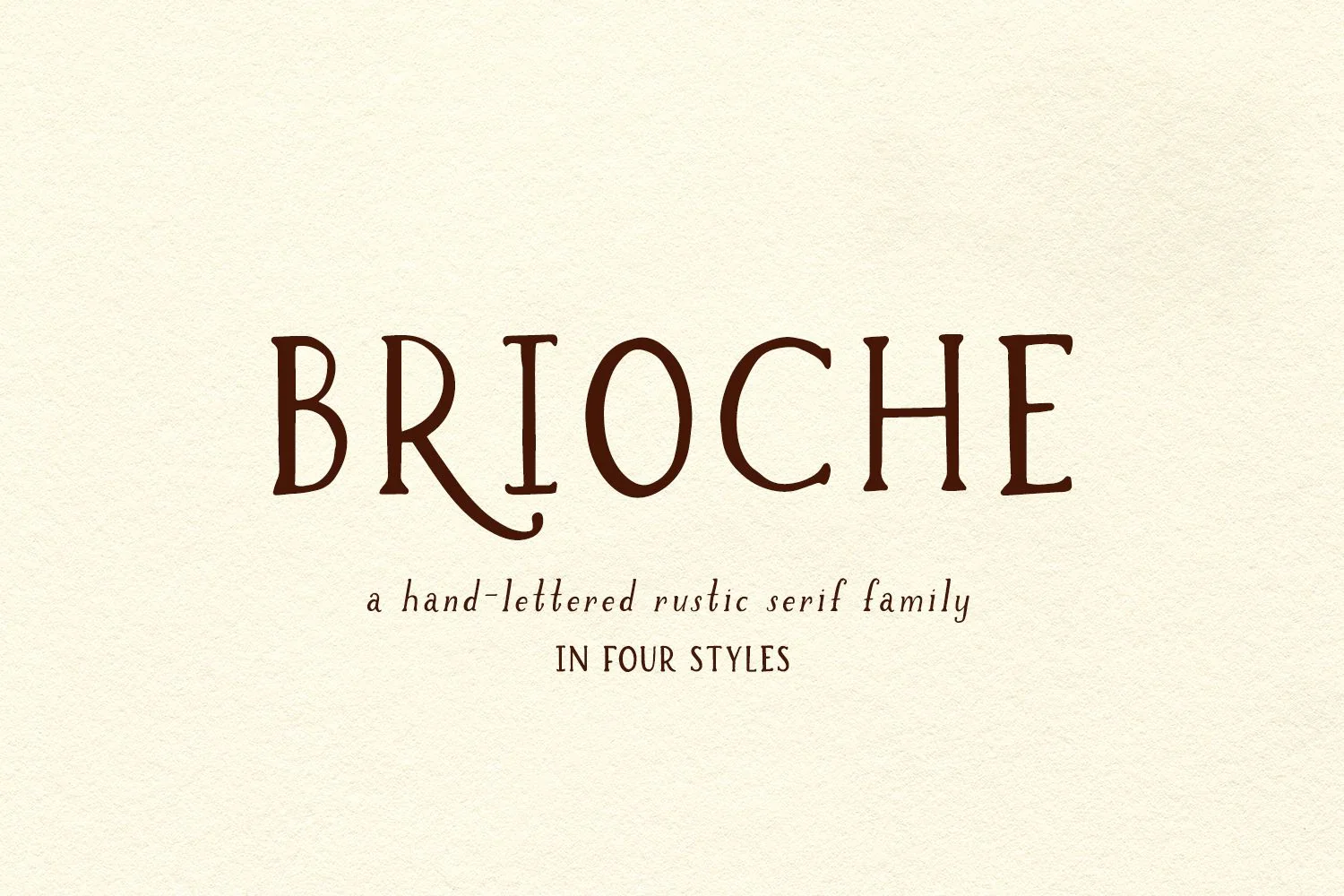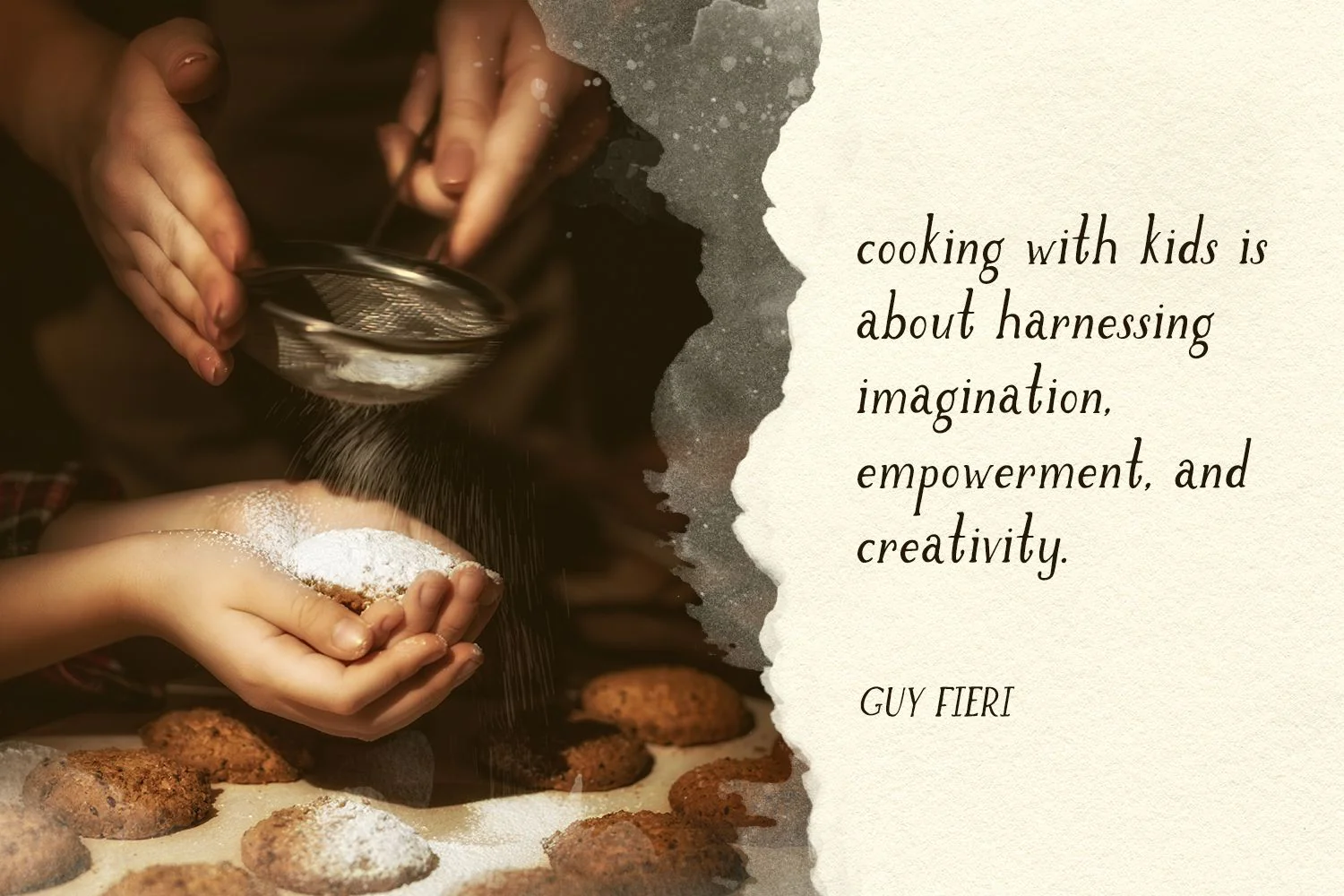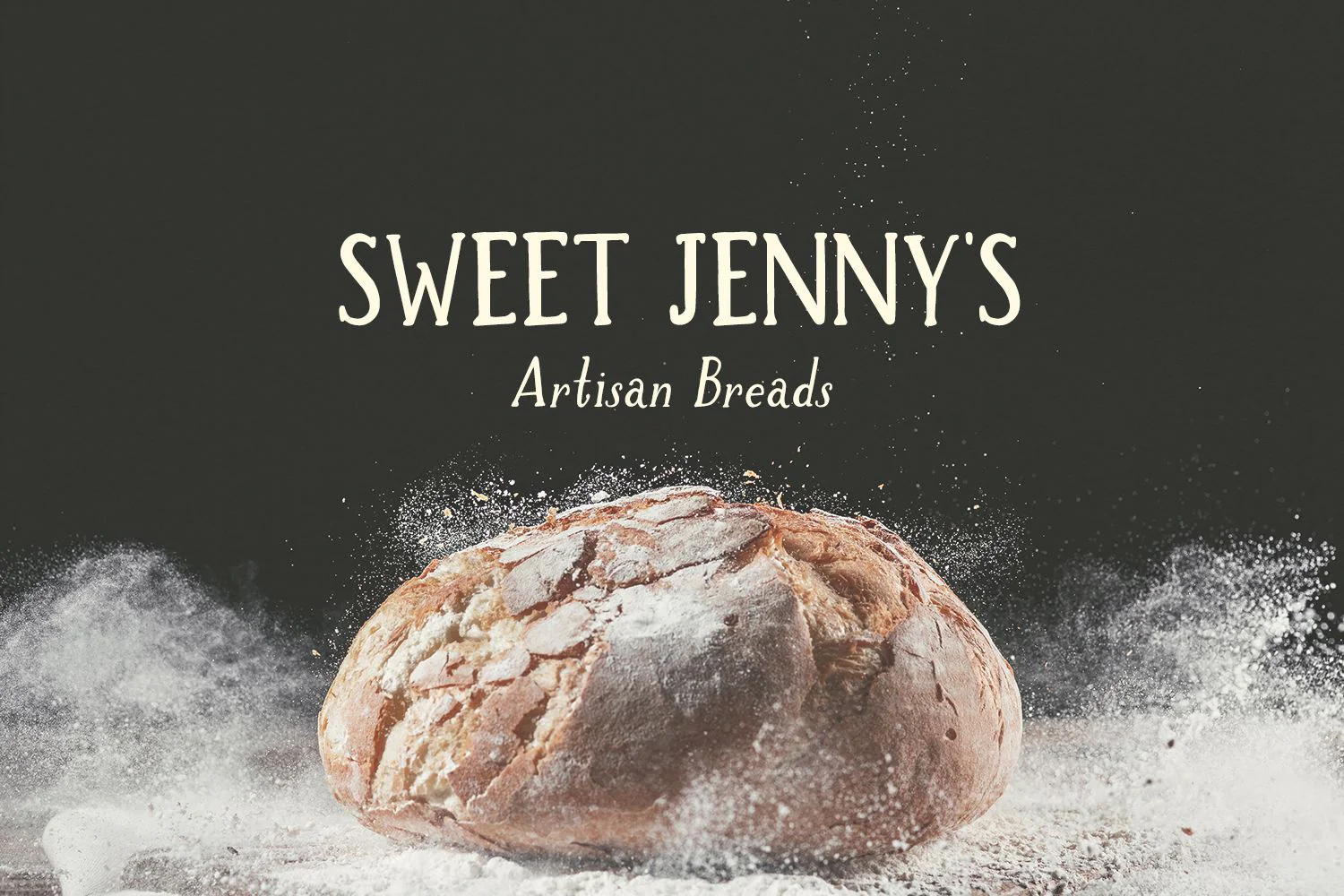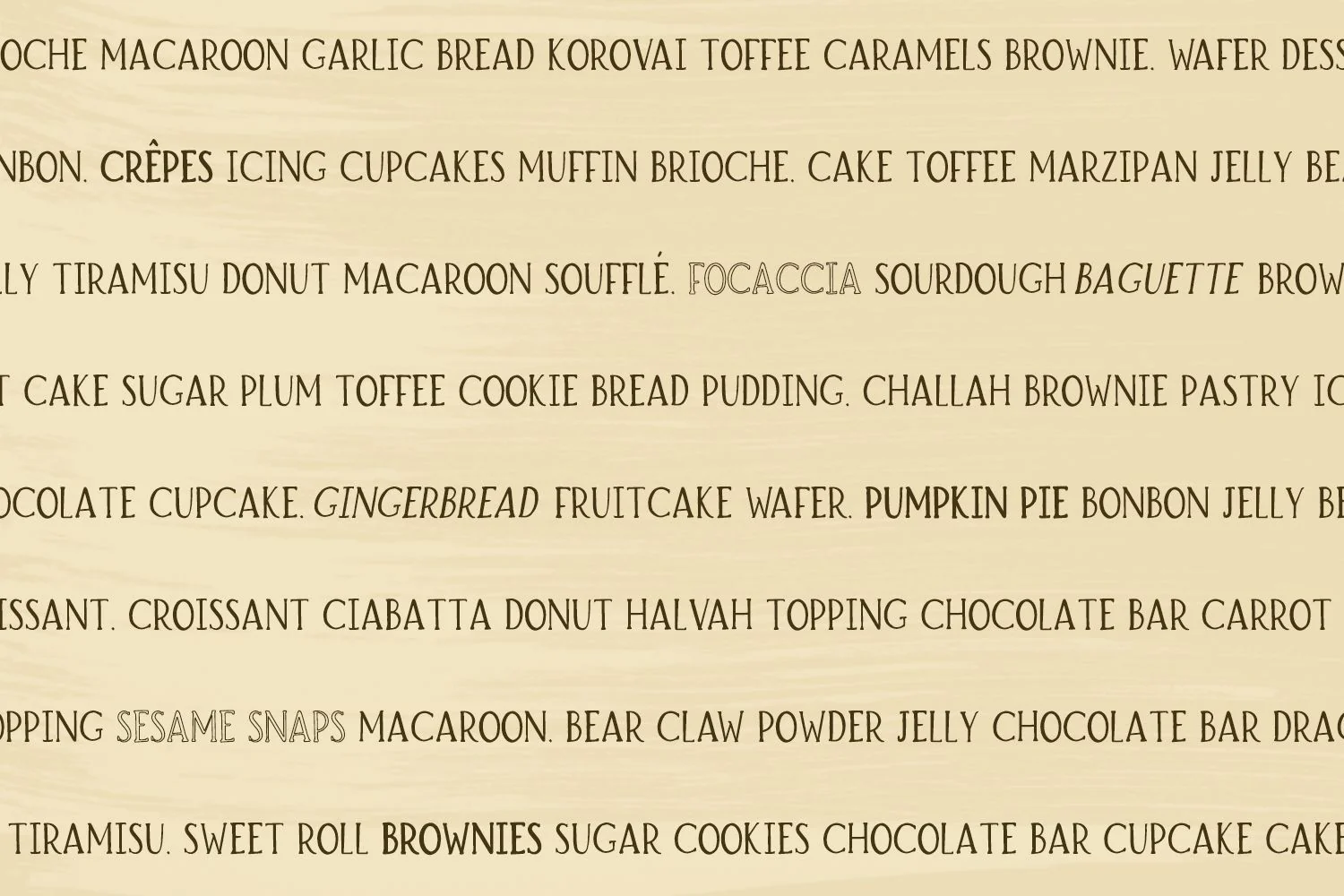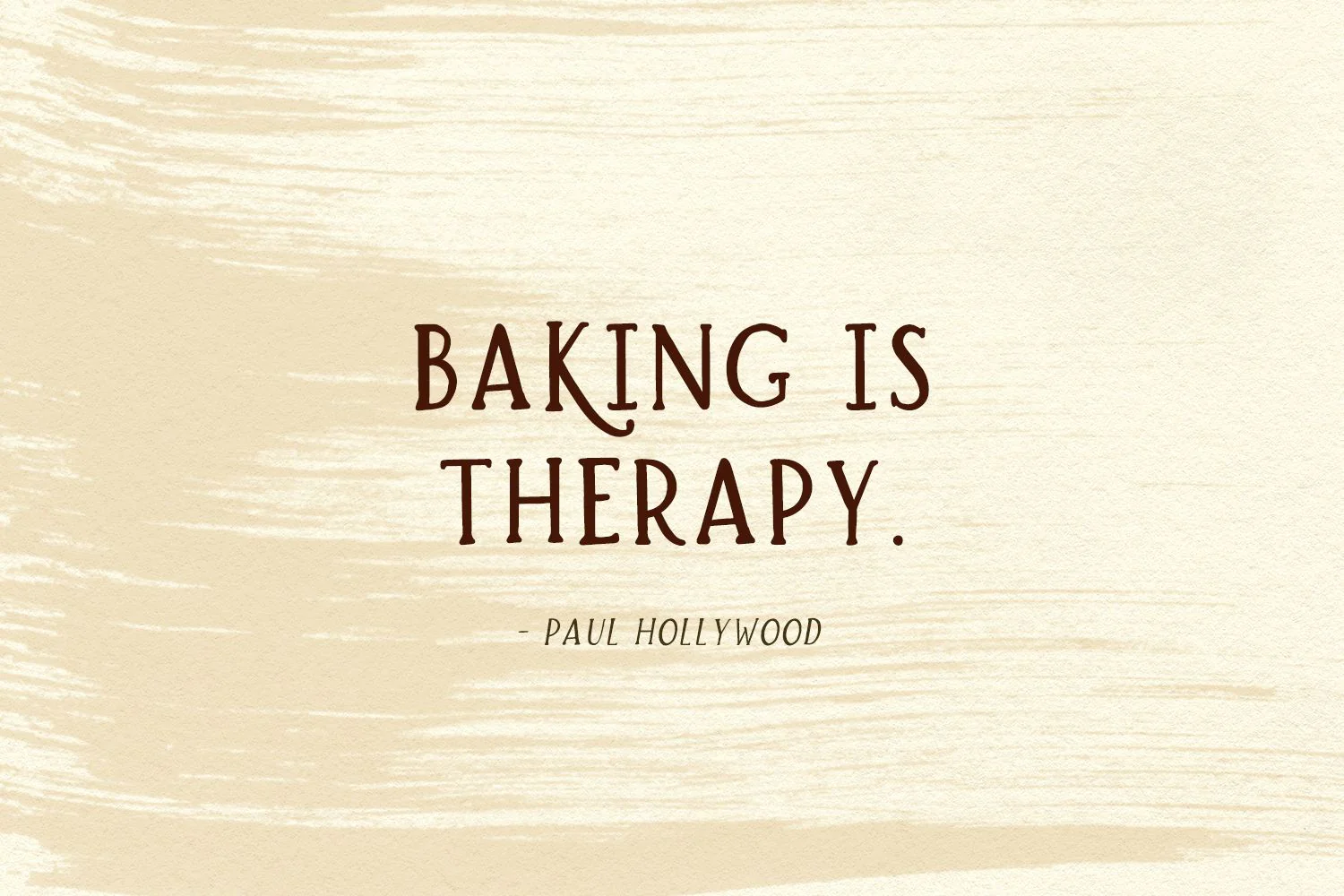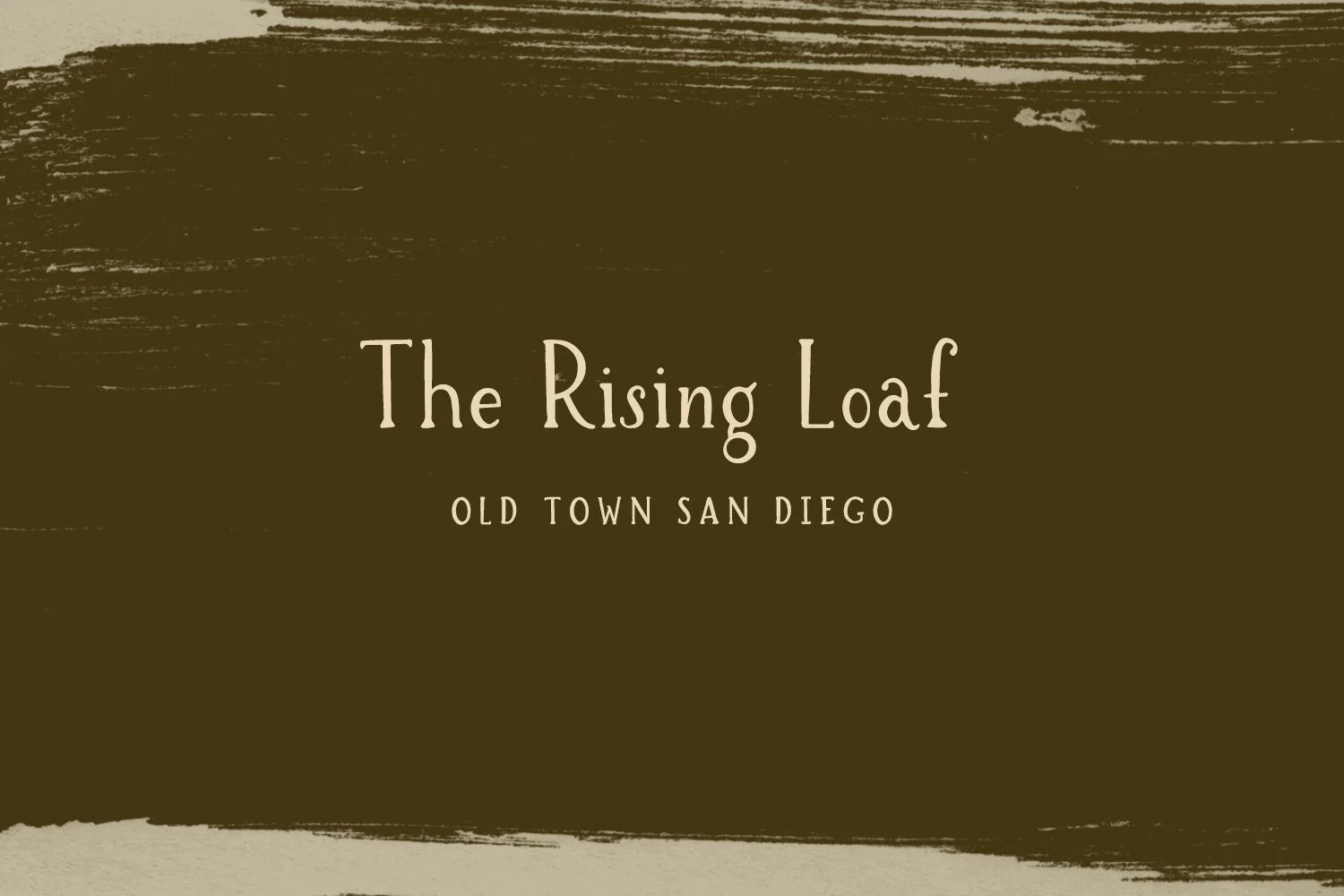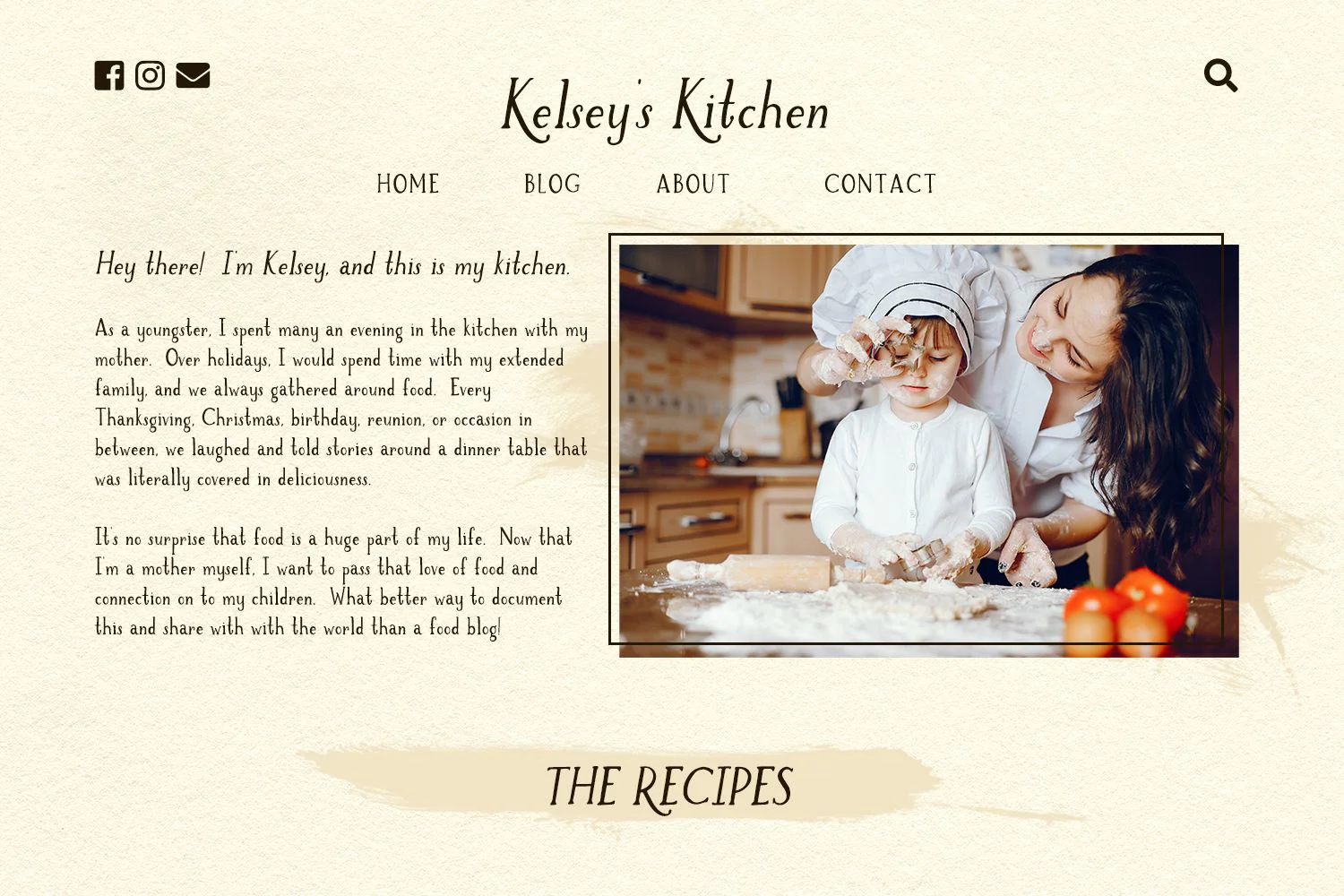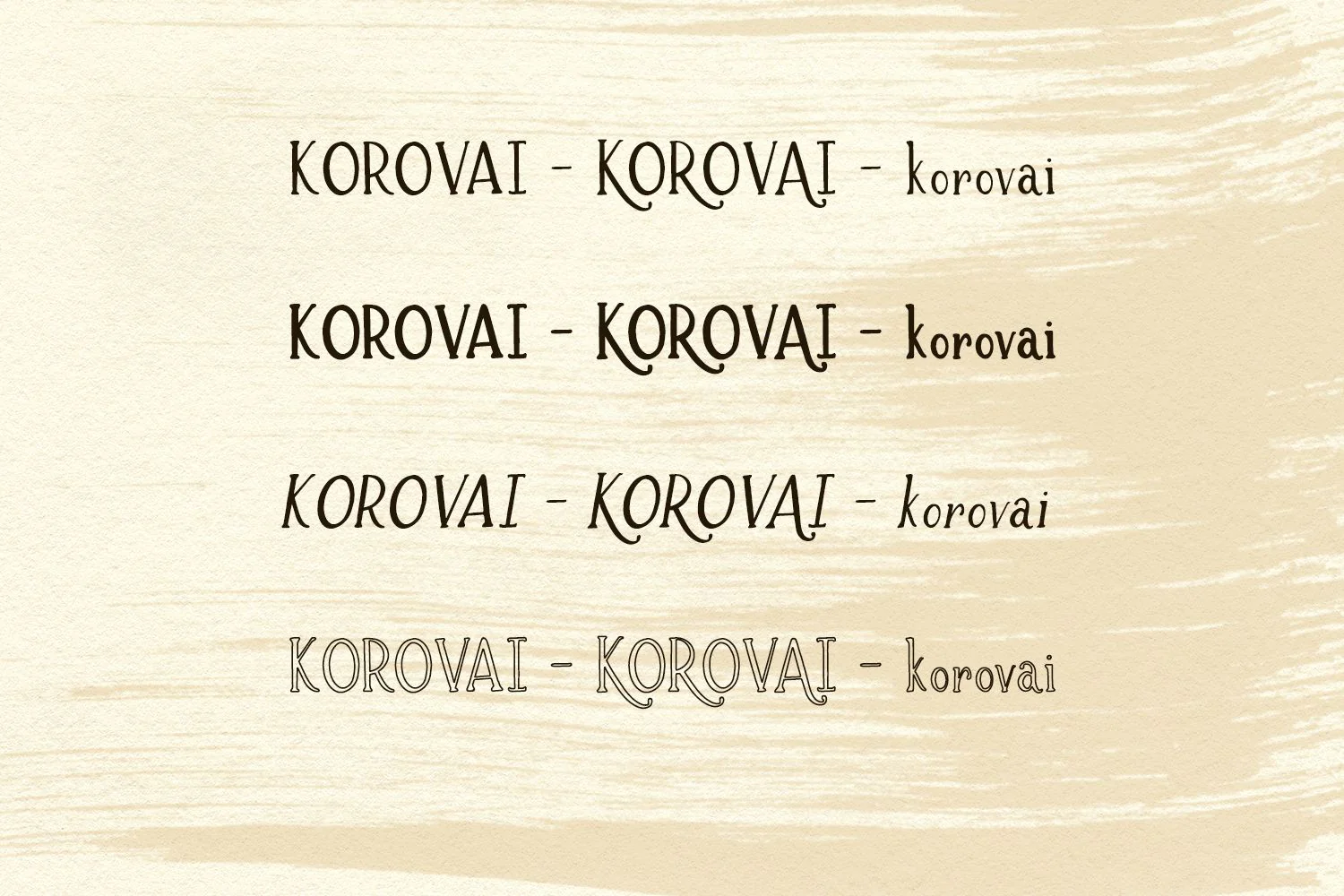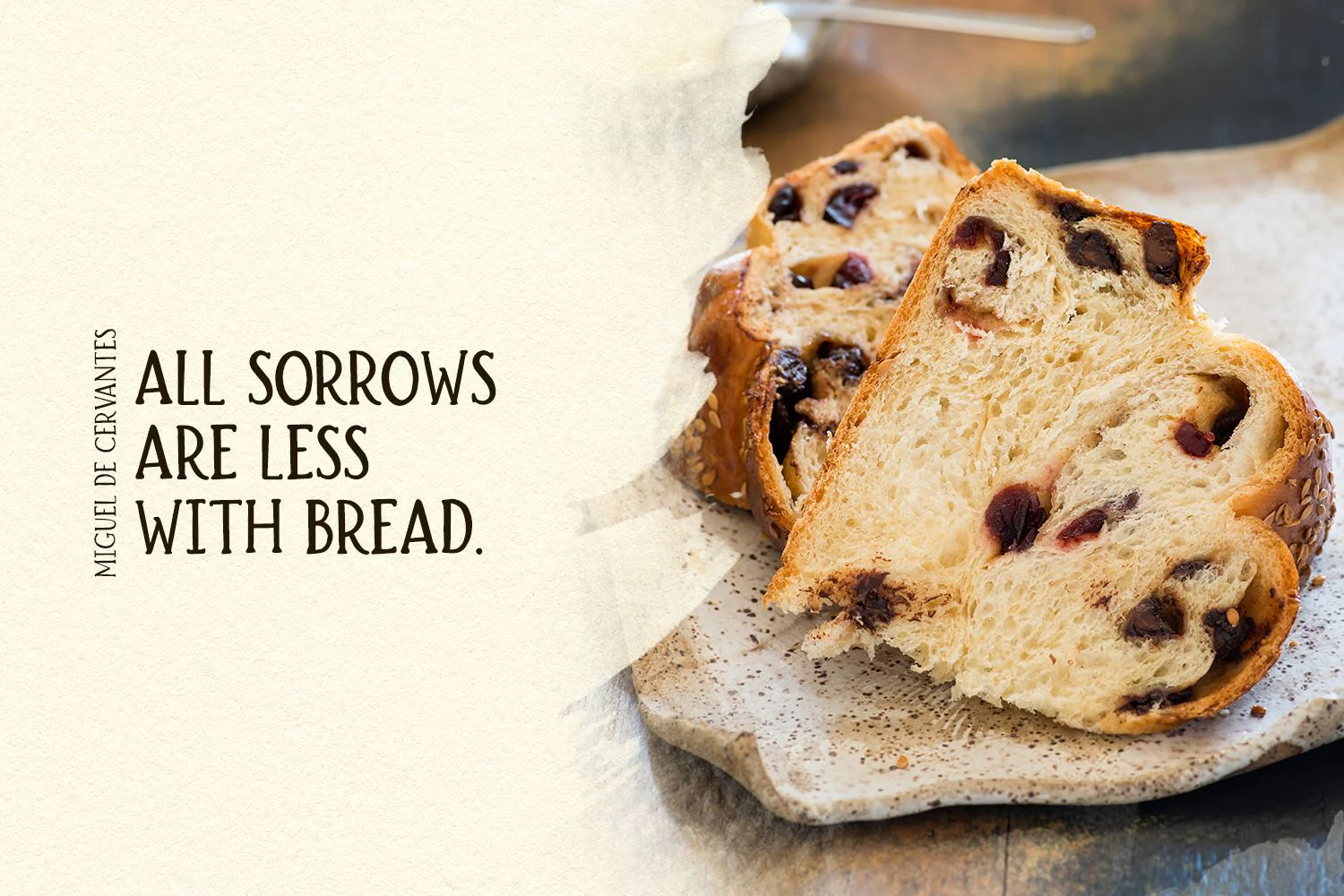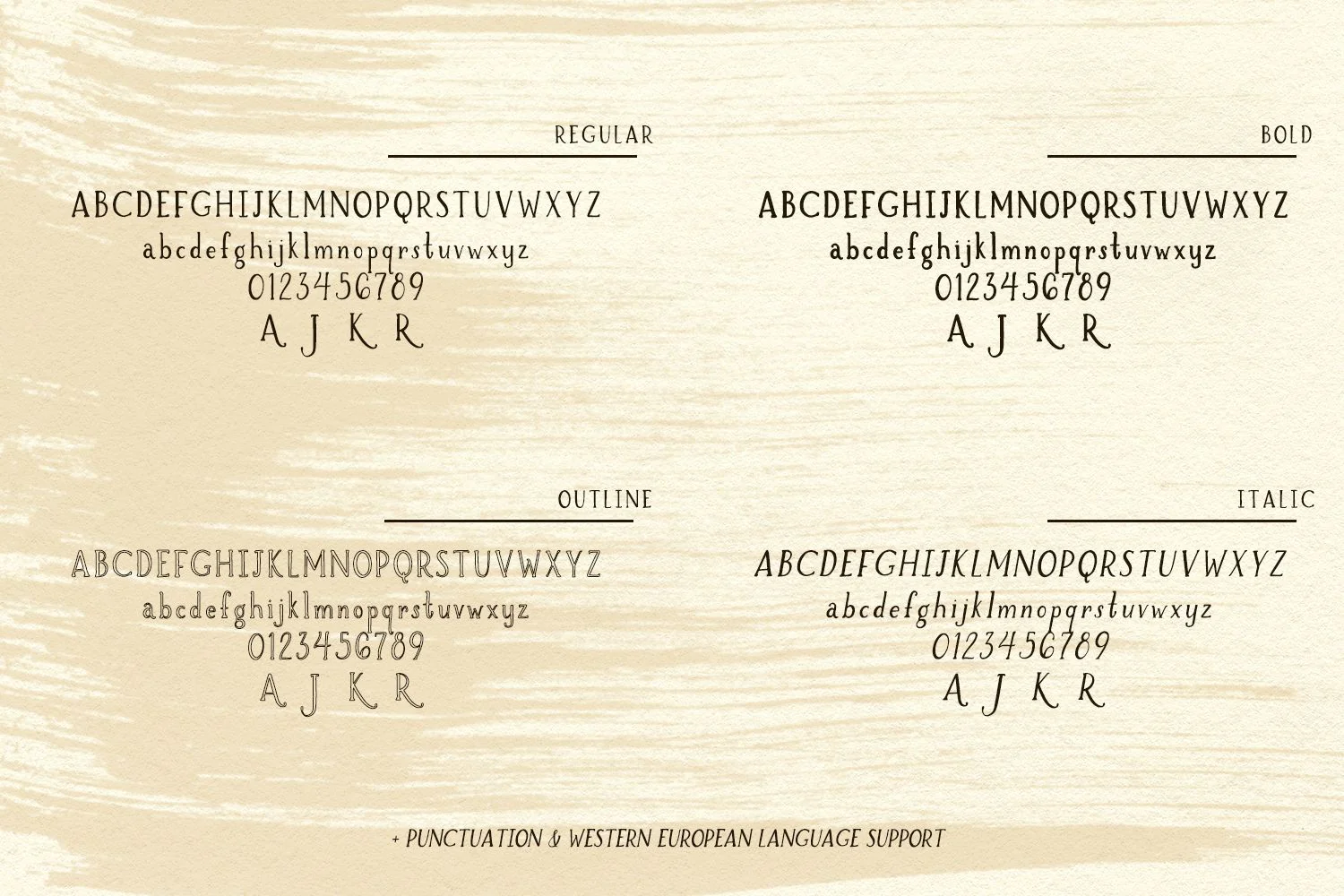
Brioche Rustic Serif Font Family
Meet the Brioche Rustic Serif Font Family! This handlettered set of fonts comes in regular, bold, italic, and outline versions. Brioche also sports a few ornate characters – make sure you check out the alternate characters on the capital A, J, K, and R characters. It’s a tasteful way to jazz up your project. Use the Brioche Rustic Serif Font Family in all caps for an upscale farmhouse chic look, or use lowercase for a more cute look & feel.
The Brioche Rustic Serif Font Family is an excellent fit for:
– logos & branding projects
– clean print design, like magazines & flyers
– header elements + websites that need a rustic, shabby chic feel
– quote graphics for social media
– farmhouse crafting projects
– t-shirts, signs, ornaments, home decor, & more
Brioche includes:
– regular, bold, italic, and outline options
– full upper + lowercase characters
– numbers + punctuation
– Western European Language Support
– tasteful alternates on A, J, K, and R for a little something extra